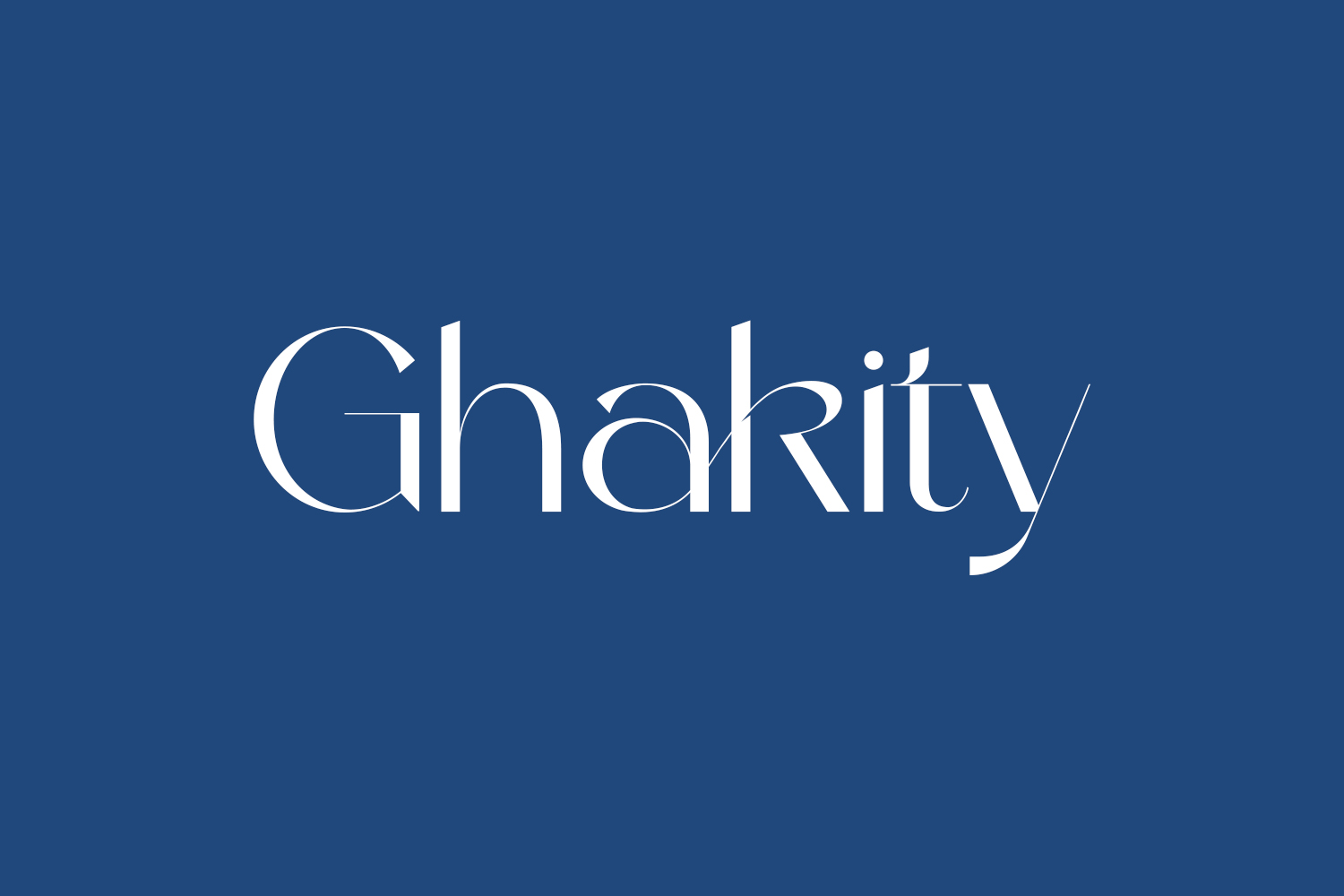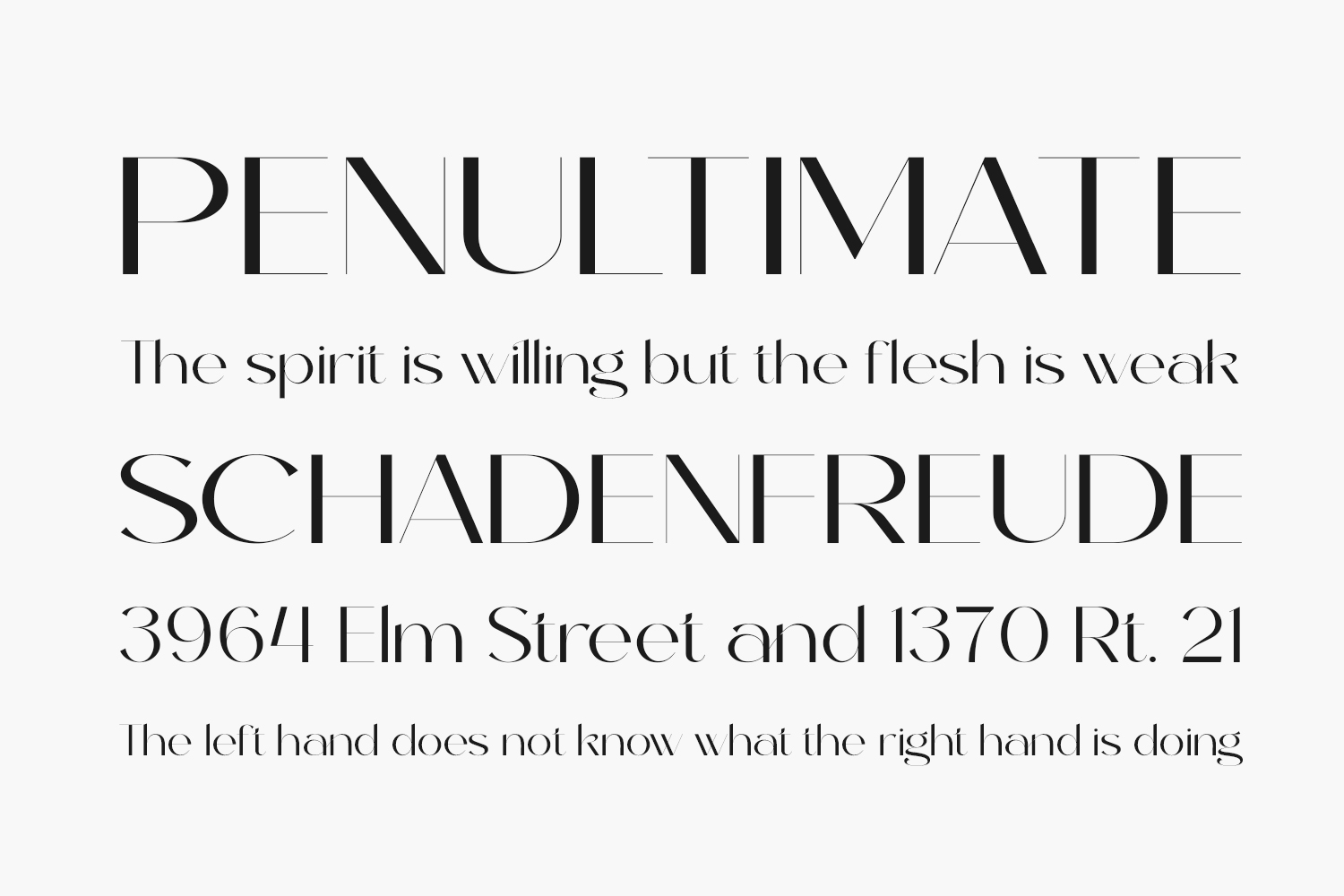
Introducing Ghakity Free Font, a contemporary yet timeless sans serif font boasting a distinctive style and sleek appearance. Perfect for crafting elegant and luxurious logos, captivating book or movie titles, fashion brands, magazine layouts, apparel, refined lettering, memorable quotes, and a plethora of other design applications. Download the font for free if you need it for personal use or purchase the full version for commercial use.